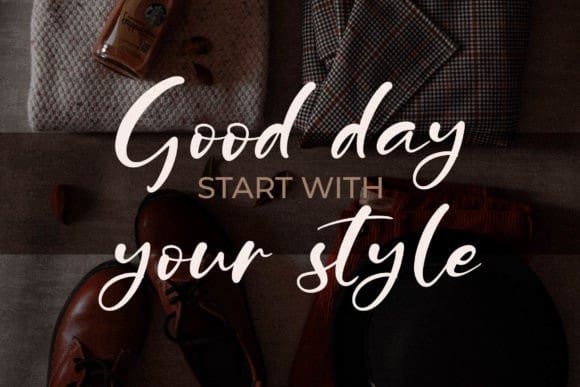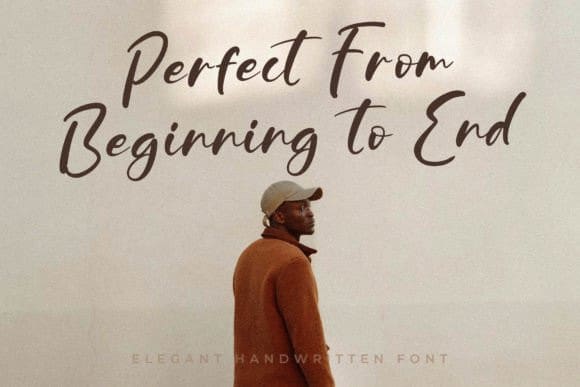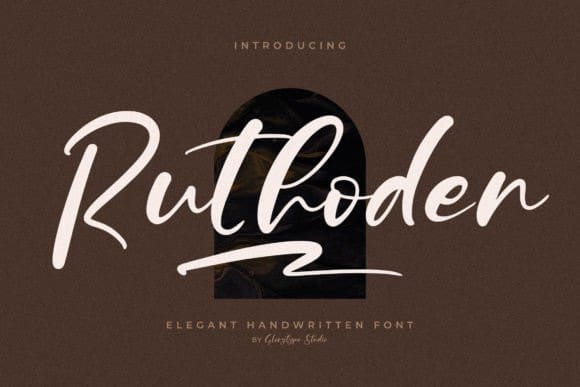
Ruthoden Script Font
Ruthoden Script Font – Elegant Handwritten Font is suitable for any projects such as logos, branding projects, homeware designs, product packaging, mugs, quotes, posters, shopping bags, t-shirts, book covers, name cards, invitation cards, greeting cards, labels, photography, watermark, special events, and all your other lovely projects that need a beautiful script taste.